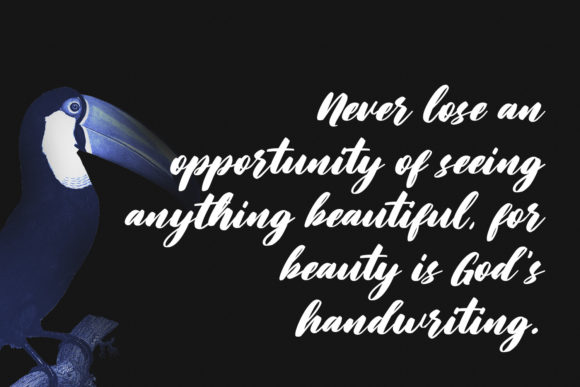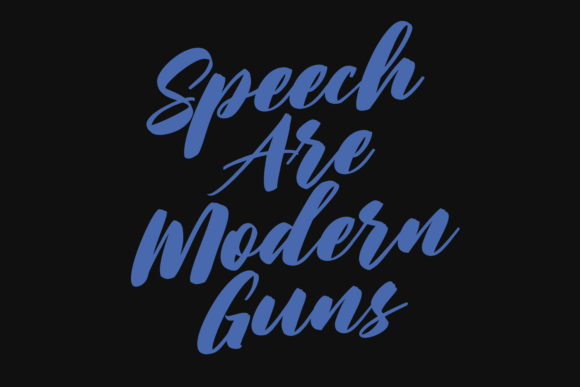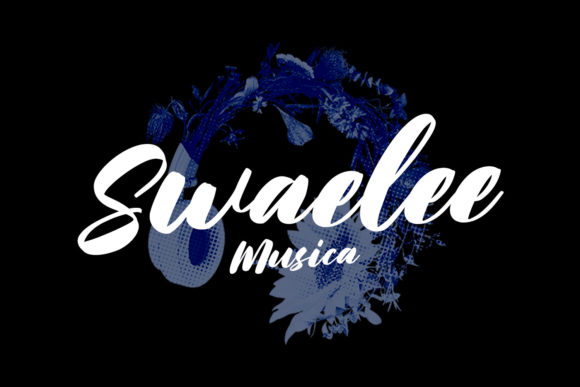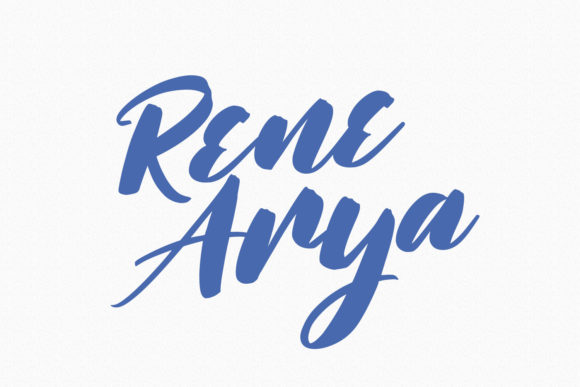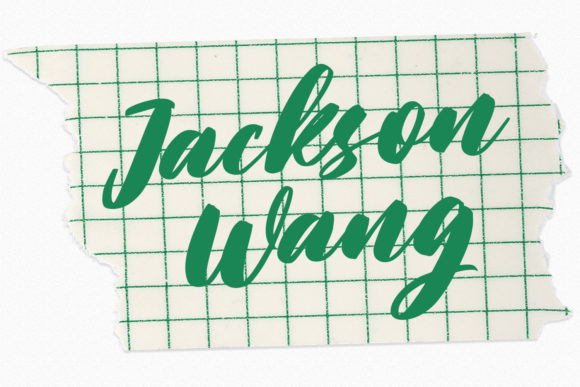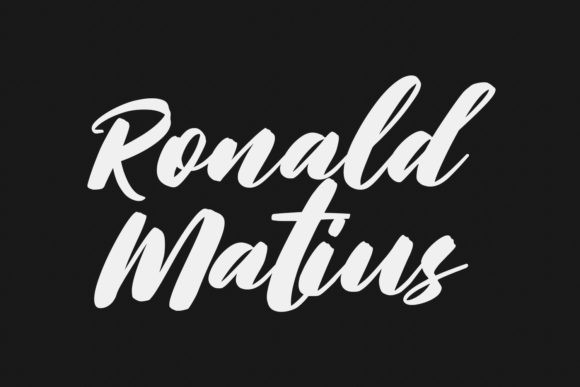
Introducing Black Birdy Font: The Whimsical Script Font You Need
Are you tired of using the same old fonts in your designs? Look no further than Black Birdy Font, a whimsical script font that’s sure to add a touch of personality to any project. With its relaxed theme and lovely style, Black Birdy is the perfect addition to any font library.
What is Black Birdy Font?
Black Birdy Font is a unique and creative script font that’s designed to bring a sense of playfulness and fun to your designs. Its whimsical style is perfect for a variety of projects, from creative crafts to digital designs. Whether you’re working on a logo, a poster, or a social media graphic, Black Birdy Font is sure to make your project stand out.
Key Features of Black Birdy Font
- Whimsical style: Black Birdy Font features a playful and whimsical style that’s perfect for adding a touch of personality to your designs.
- Relaxed theme: The font’s relaxed theme makes it perfect for a variety of projects, from casual crafts to digital designs.
- Lovely style: The font’s lovely style is sure to add a touch of elegance and sophistication to any project.
- Versatile: Black Birdy Font can be used for a wide range of projects, from logos and posters to social media graphics and more.
Why You Need Black Birdy Font in Your Library
No matter what type of projects you work on, Black Birdy Font is sure to be an incredible asset to your font library. Its unique and whimsical style makes it perfect for adding a touch of personality to any design. Here are just a few reasons why you need Black Birdy Font in your library:
- Adds personality to your designs: Black Birdy Font is sure to add a touch of personality and whimsy to any project.
- Elevates any creation: The font’s lovely style and relaxed theme make it perfect for elevating any creation, from simple crafts to complex digital designs.
- Versatile: Black Birdy Font can be used for a wide range of projects, making it a great addition to any font library.
How to Use Black Birdy Font
Black Birdy Font is easy to use and can be incorporated into a variety of projects. Here are a few ways you can use Black Birdy Font:
- Logos and branding: Use Black Birdy Font to create a unique and memorable logo for your business or brand.
- Posters and flyers: Add a touch of personality to your posters and flyers with Black Birdy Font.
- Social media graphics: Use Black Birdy Font to create eye-catching social media graphics that are sure to stand out.
- Crafts and DIY projects: Black Birdy Font is perfect for adding a personal touch to your crafts and DIY projects.
Tips and Tricks for Using Black Birdy Font
Here are a few tips and tricks for using Black Birdy Font:
- Experiment with different colors: Black Birdy Font looks great in a variety of colors, so don’t be afraid to experiment and find the perfect color for your project.
- Pair with other fonts: Black Birdy Font pairs well with a variety of other fonts, so try pairing it with a bold font for a striking contrast.
- Use it sparingly: Black Birdy Font is a statement font, so use it sparingly to add a touch of personality to your designs.